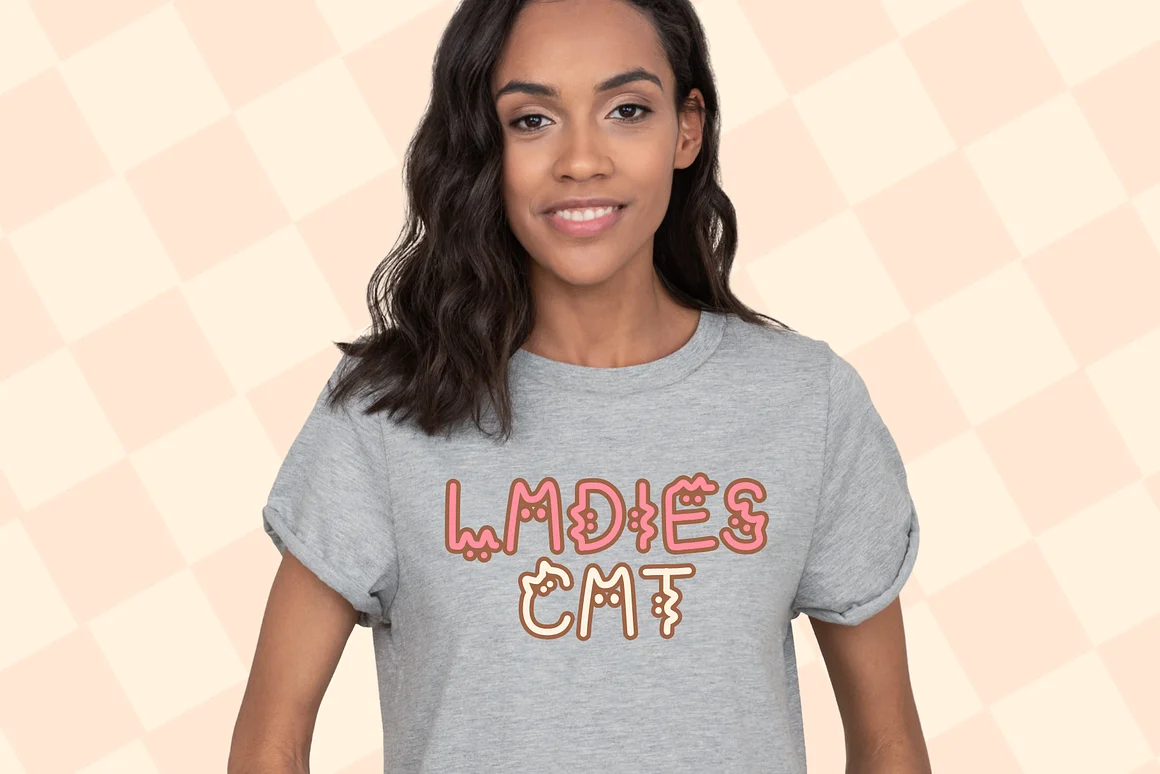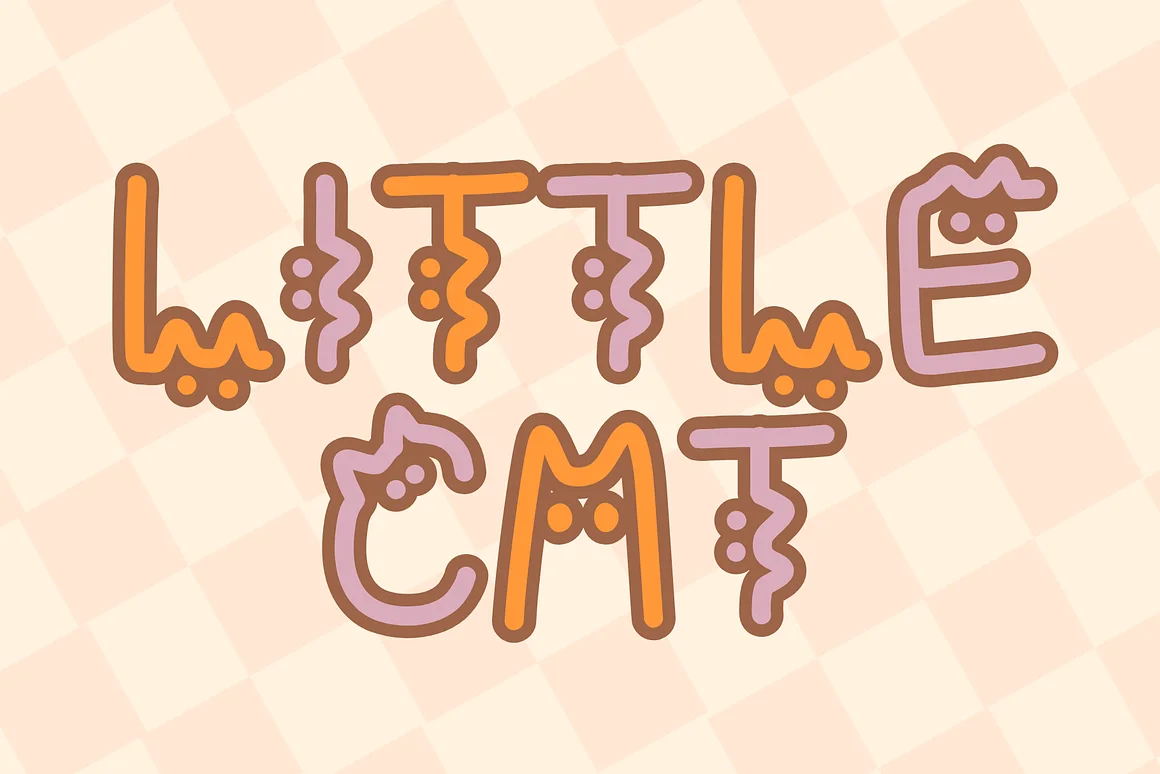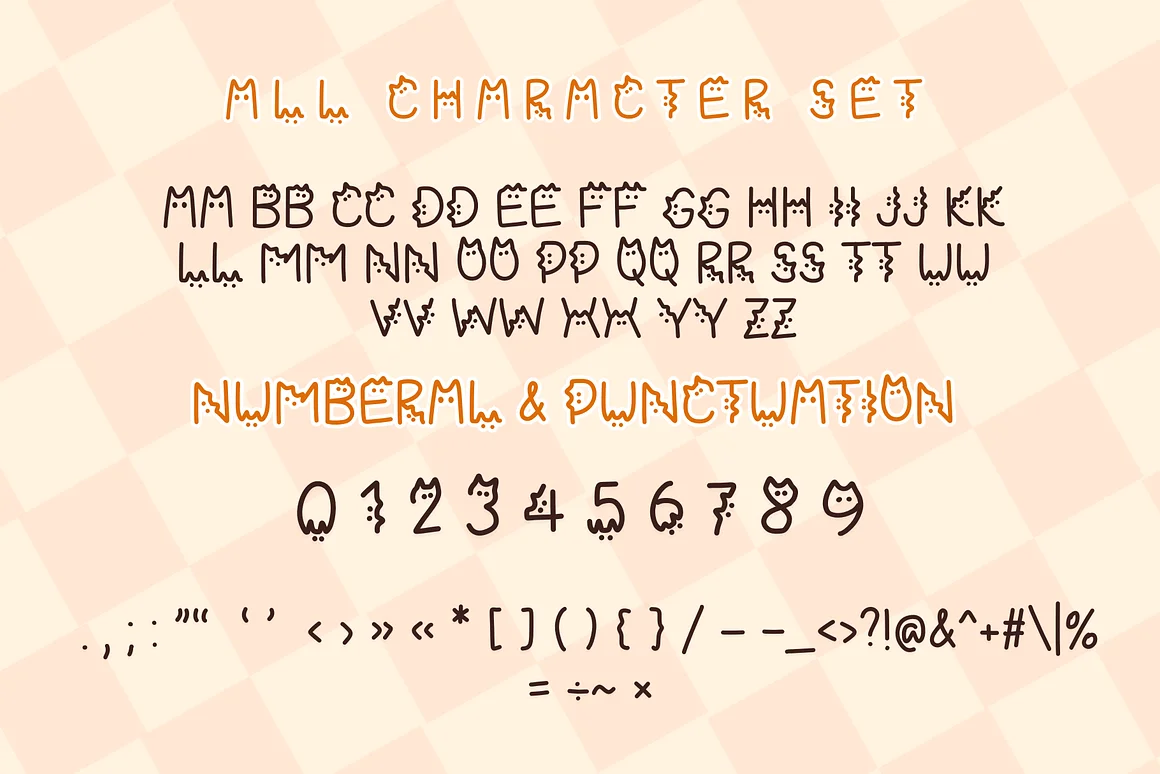
Kamala is a Cute Handwritten Font
Kamala is a cute handwritten font with decorative cat. It embodies playfulness and authenticity and is the perfect choice for all your favorite projects such as blog posts, logos, branding, ads, invitations, greeting cards, planners, photo albums, decorations, and more. Add it to any of your designs, and enjoy the results!